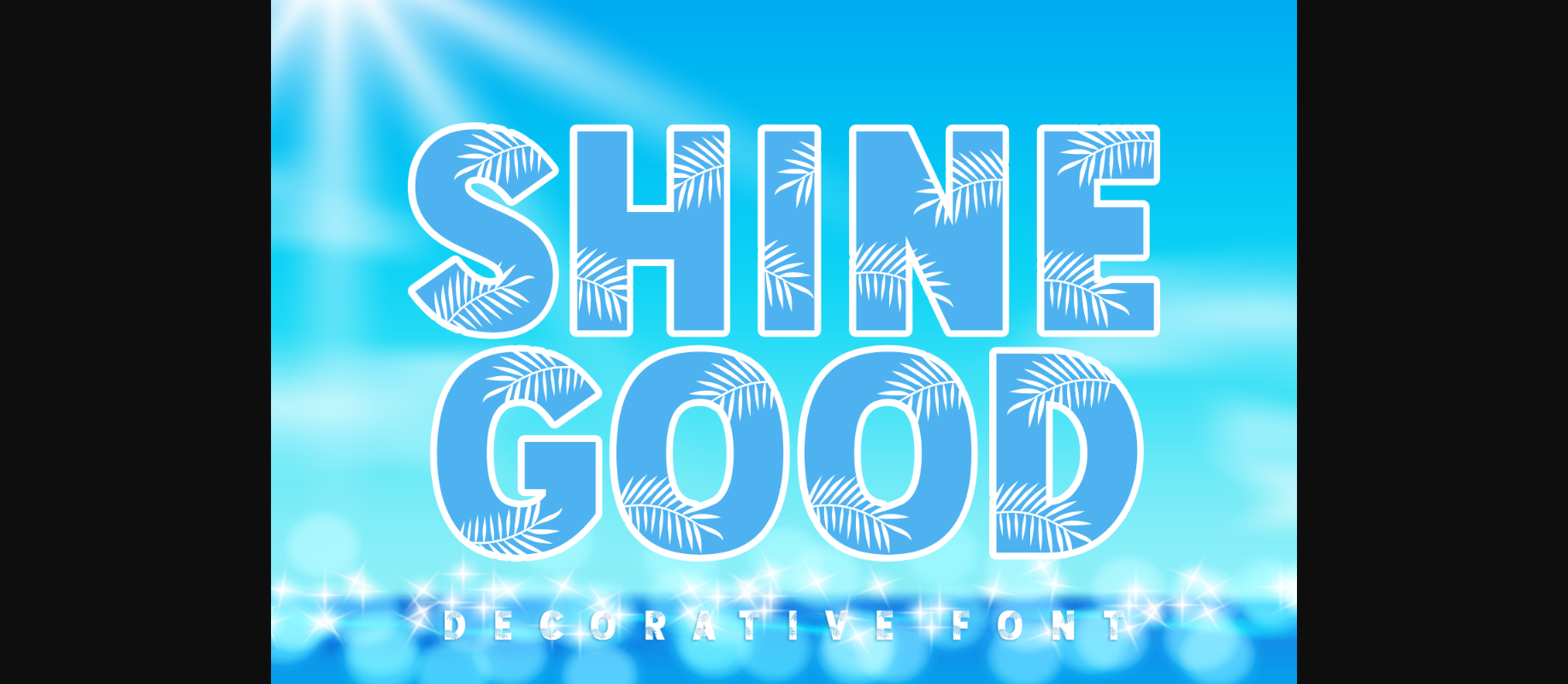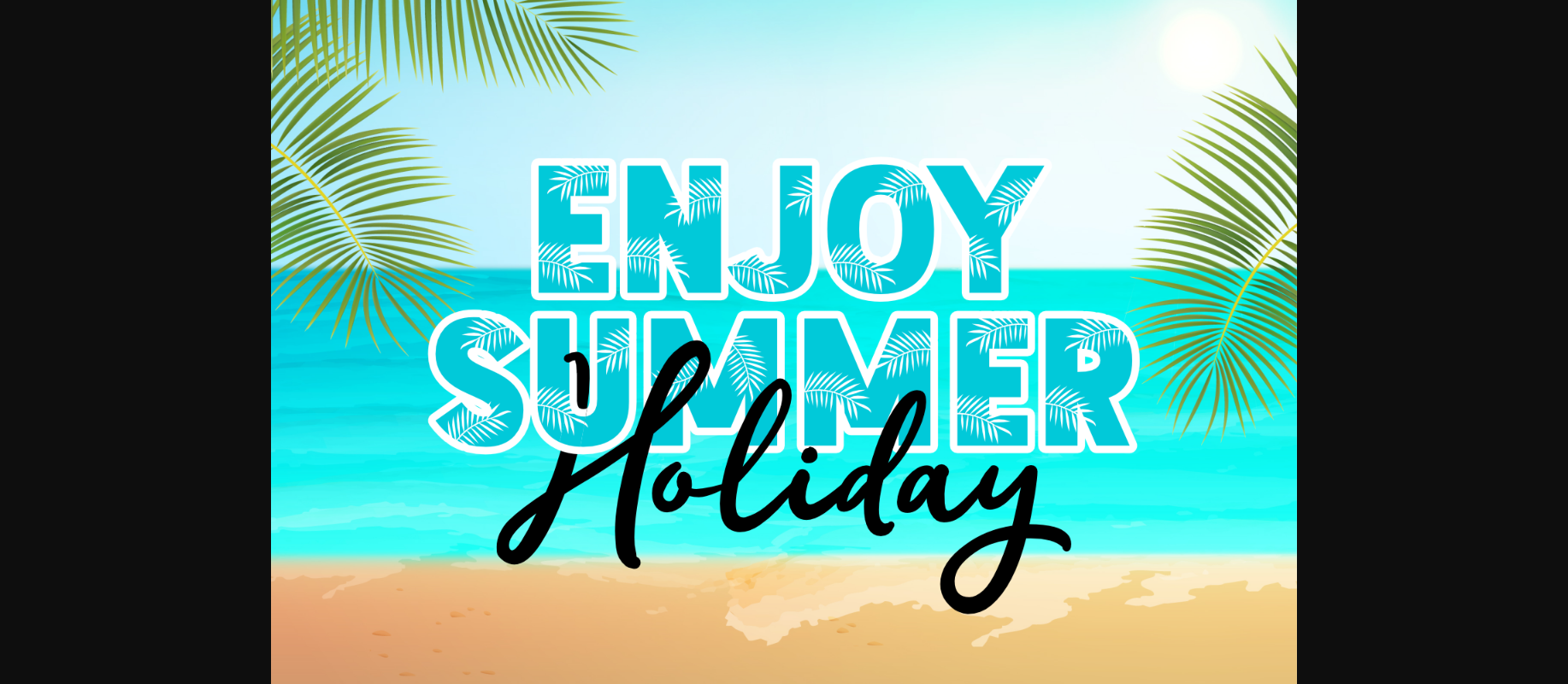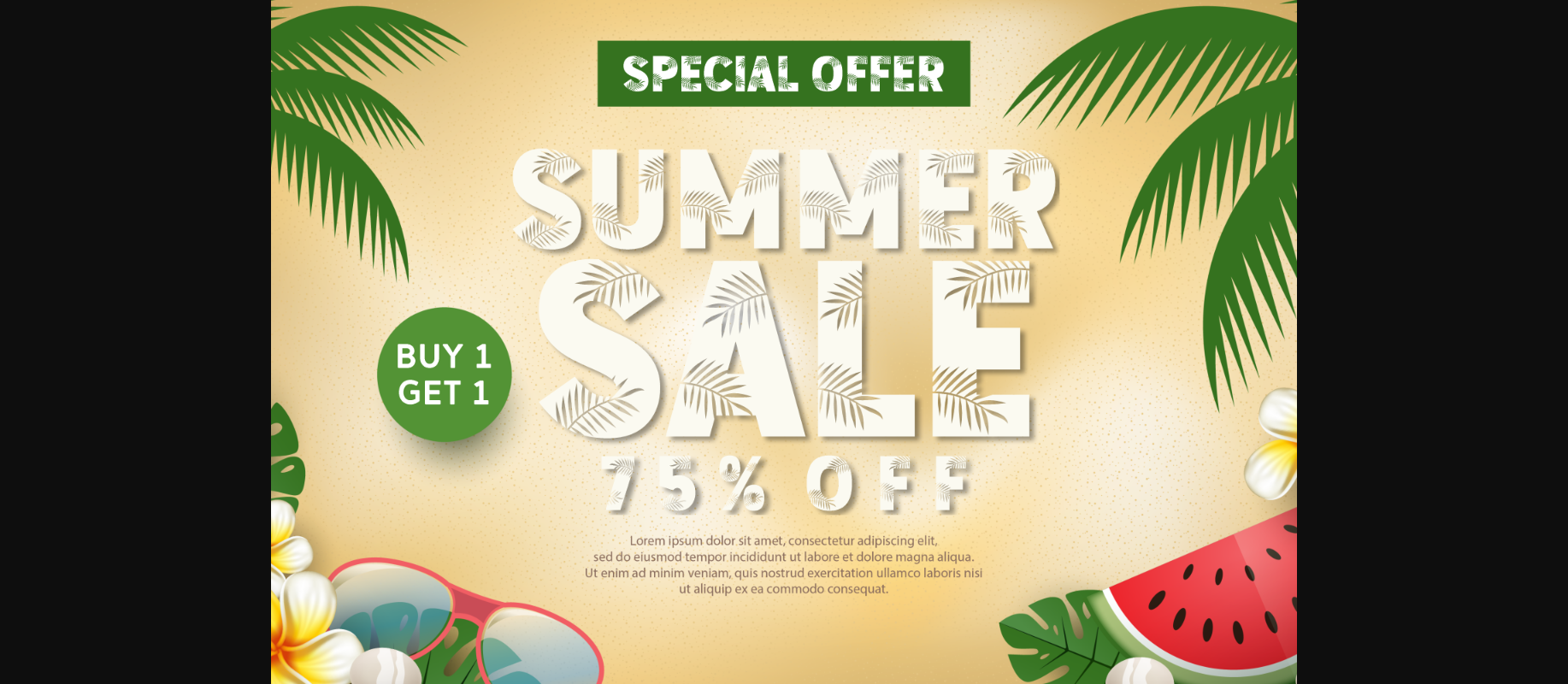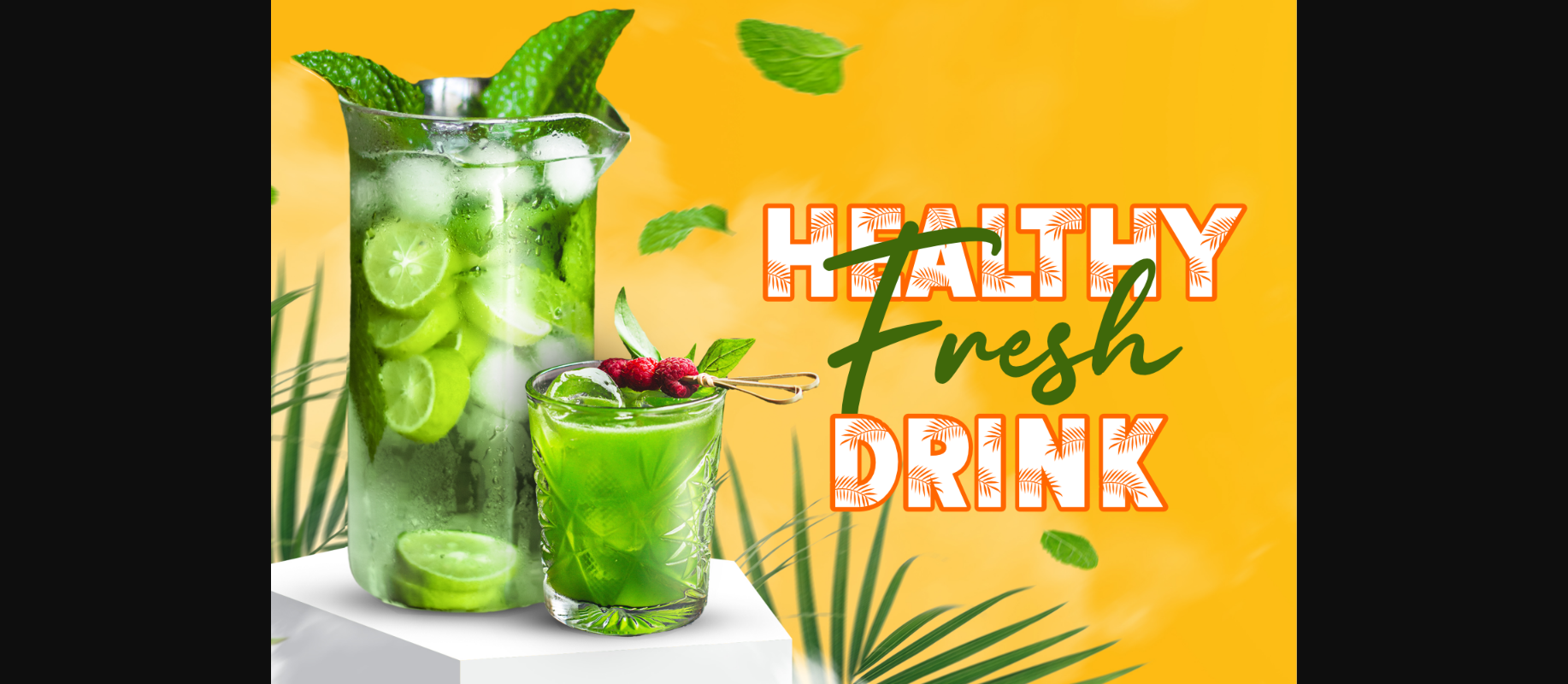
Shine Good Font
About Shine Good Font
Shine Good is a one-of-a-kind decorative font that captures the essence of adventure and exploration. Its intricate details and flowing lines make it stand out from the crowd, making it perfect for travel-related designs, book covers, and more.